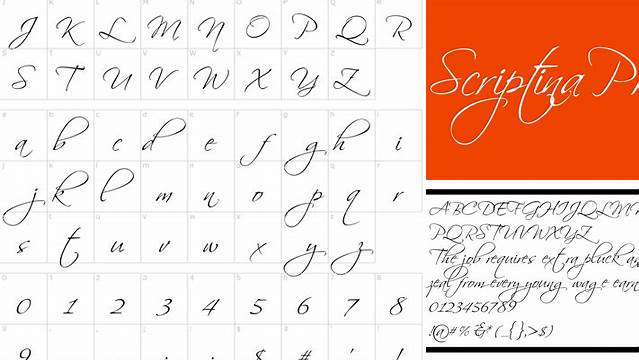
Hey guys! Ever stumbled upon a font so elegant and swirly that it just screams sophistication? Chances are, you've seen or heard of Scriptina! This font is a real gem for designers and anyone looking to add a touch of class to their projects. Let's dive deep into the world of Scriptina, explore its charm, and figure out how you can use it to make your creations pop!
What Makes Scriptina Font So Special?
So, what's the big deal about Scriptina? Well, it's not just another pretty typeface; it has a unique personality that sets it apart. Its flowing strokes and elegant curves give it a handwritten feel, making it perfect for projects that need a personal touch. Think wedding invitations, logos, and even website headers – Scriptina can handle it all! Its versatility is a major plus, making it a go-to choice for many designers. Plus, the fact that it's often available for free (for personal use, at least) makes it even more appealing. You get a high-quality, beautiful font without breaking the bank. Now, who wouldn't want that?
Scriptina Font: A Comprehensive Overview
Scriptina, with its graceful calligraphy, is more than just a typeface; it's an art form in itself. This font captures the essence of handwritten elegance, making it a favorite among designers and creatives. The flowing strokes and intricate swirls give it a distinctive charm that can elevate any project. Whether you're working on wedding invitations, branding materials, or digital art, Scriptina adds a touch of sophistication and class. Its versatility allows it to seamlessly blend into various design aesthetics, from traditional to modern. The beauty of Scriptina lies in its ability to convey emotions and sentiments, making it perfect for projects that require a personal touch. It's not just about the letters; it's about the feeling they evoke. By choosing Scriptina, you're not just selecting a font; you're choosing a statement of elegance and style.
Scriptina Font Generator: Creating Unique Designs
Want to add a unique twist to your designs? A Scriptina font generator can be your best friend! These online tools allow you to type in your text and instantly see it rendered in the Scriptina typeface. But the magic doesn't stop there. Many generators offer customization options, allowing you to tweak the font's size, color, and even add special effects. This is perfect for creating eye-catching logos, banners, and social media graphics. Imagine being able to create a stunning header for your blog or a personalized invitation card with just a few clicks. Scriptina font generators make it incredibly easy to experiment with different looks and find the perfect style for your project. Plus, they often provide a preview of your design before you download it, ensuring you get exactly what you want. So, unleash your creativity and see what you can create with a Scriptina font generator!
Scriptina Font Alternatives: Exploring Similar Styles
Okay, so you love the Scriptina font, but maybe you're looking for something slightly different or just want to have some alternatives in your toolkit. No problem! There's a whole world of elegant script fonts out there that capture a similar vibe. Think about fonts like Great Vibes, Allura, or Pacifico. These typefaces share Scriptina's graceful curves and flowing lines, making them excellent substitutes. Each font has its own unique personality, though. Great Vibes has a more classic feel, while Allura offers a slightly more modern twist. Pacifico brings a casual, beachy vibe to the table. Exploring these alternatives can help you find the perfect fit for your project, whether you need something formal, whimsical, or anything in between. Don't be afraid to experiment and see what speaks to you! You might just discover your new favorite font.
Scriptina Font Pairing: Finding the Perfect Match
One of the keys to great design is font pairing – finding the perfect complementary typeface to go with your main font. Scriptina, with its elegant script style, often pairs beautifully with clean, sans-serif fonts. Think about using it with fonts like Open Sans, Montserrat, or Lato. These fonts provide a nice contrast to Scriptina's flourishes, creating a balanced and visually appealing design. The simplicity of a sans-serif font helps to make Scriptina stand out without overwhelming the overall look. You could also consider pairing Scriptina with a classic serif font like Merriweather or Playfair Display for a more traditional feel. The key is to create a visual hierarchy, where Scriptina is used for headings or titles, and the secondary font is used for body text. This ensures readability and adds a touch of sophistication to your project. So, have fun experimenting and see what combinations work best for you!
Scriptina Pro Font: Unlocking Advanced Features
If you're serious about design, you might want to check out Scriptina Pro. This enhanced version of the font often includes additional features and glyphs that can take your designs to the next level. Think about extra ligatures, alternate characters, and extended language support. These features give you more flexibility and control over your typography, allowing you to create truly unique and polished designs. For example, ligatures can seamlessly connect certain letter combinations, creating a more fluid and natural look. Alternate characters offer different stylistic options for individual letters, giving you more creative freedom. Scriptina Pro is often a worthwhile investment for professional designers or anyone who wants to push the boundaries of their typography skills. It's like having a secret weapon in your design arsenal!
Scriptina Font in Logo Design: Branding with Elegance
Using the Scriptina font in logo design can instantly elevate your brand's image. Its elegant and flowing script style adds a touch of sophistication and class, making it perfect for businesses that want to convey a sense of luxury or artistry. Think about brands in the fashion, beauty, or wedding industries – Scriptina can be a fantastic choice. However, it's crucial to use it strategically. Script fonts can sometimes be less readable at small sizes, so it's essential to ensure your logo remains legible across different platforms and applications. Consider using Scriptina for the main brand name and pairing it with a simpler sans-serif font for any supporting text or tagline. This creates a balanced and visually appealing logo that effectively communicates your brand's message. With careful consideration, Scriptina can be a powerful tool for creating a memorable and impactful brand identity.
Scriptina Font: Frequently Asked Questions (FAQs)
Got questions about the Scriptina font? You're not alone! Here are some frequently asked questions to help you better understand this elegant typeface: Is Scriptina free to use? The answer depends on the license. Many versions of Scriptina are free for personal use, but commercial use may require a license. Always check the license agreement before using it in a project that generates revenue. Where can I download Scriptina? You can find Scriptina on various font websites like FontSpace, DaFont, and Fontesk. Make sure to download it from a reputable source to avoid malware or copyright issues. What fonts pair well with Scriptina? Scriptina pairs beautifully with clean and simple fonts like sans-serif or classic serif typefaces. This creates a visual hierarchy and ensures readability. Can I use Scriptina for my logo? Yes, Scriptina can be a great choice for logos, especially for businesses that want to convey elegance or a personal touch. However, make sure your logo remains legible at small sizes. How can I use Scriptina effectively? Use it sparingly, pair it with a legible font, and consider the context of your design. By answering these frequently asked questions, we hope you have a better understanding of the Scriptina font and how to use it effectively in your designs.